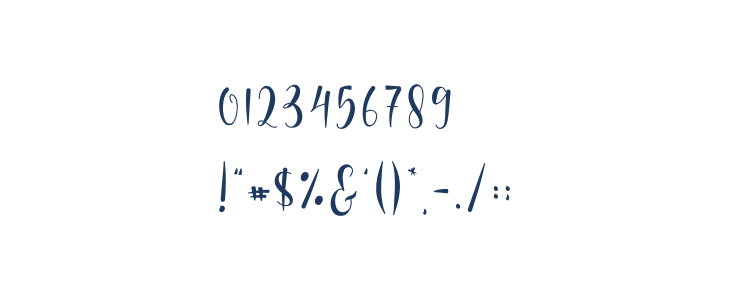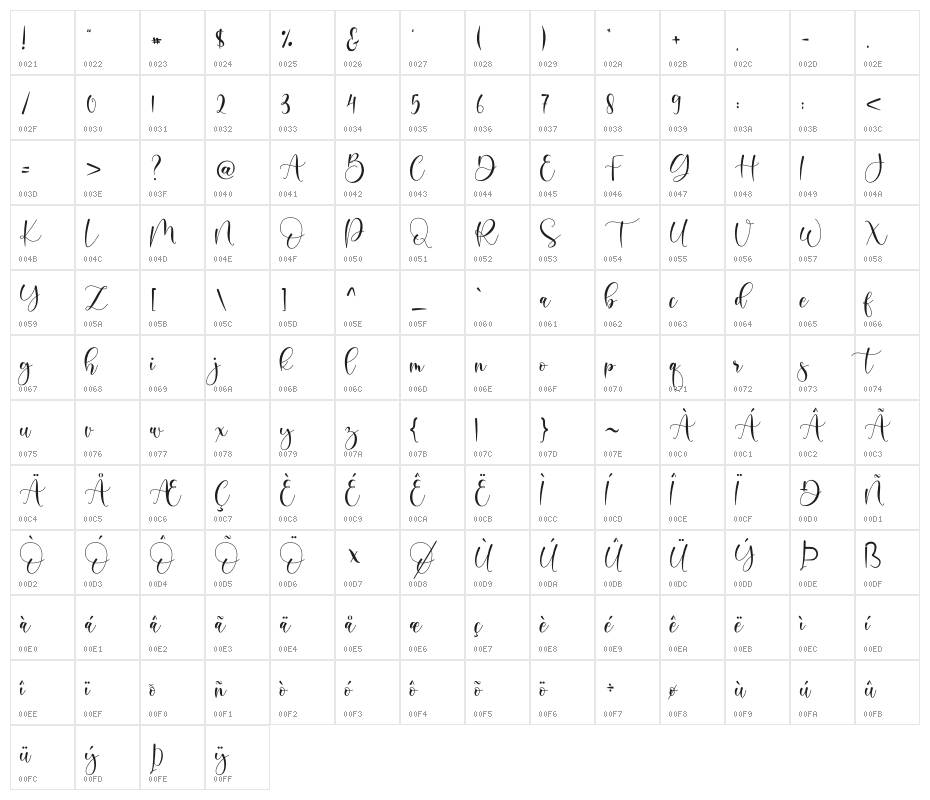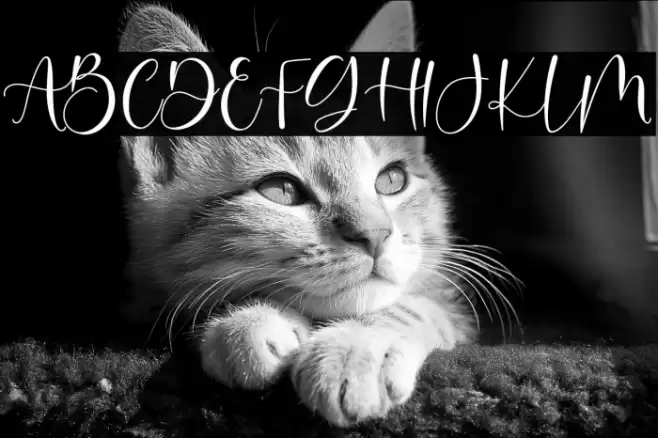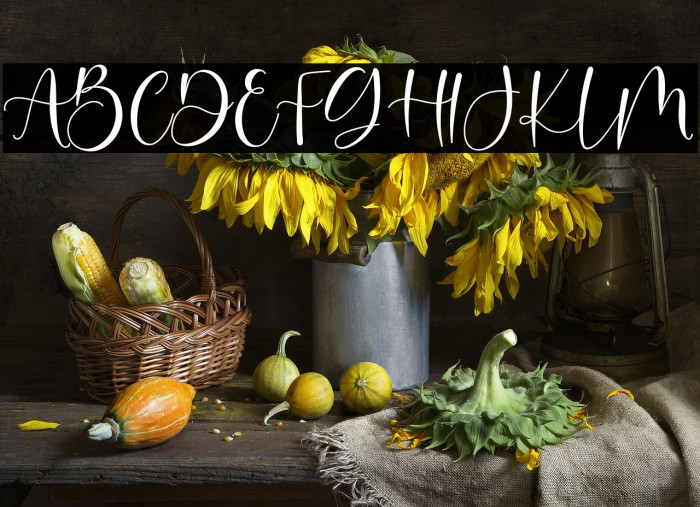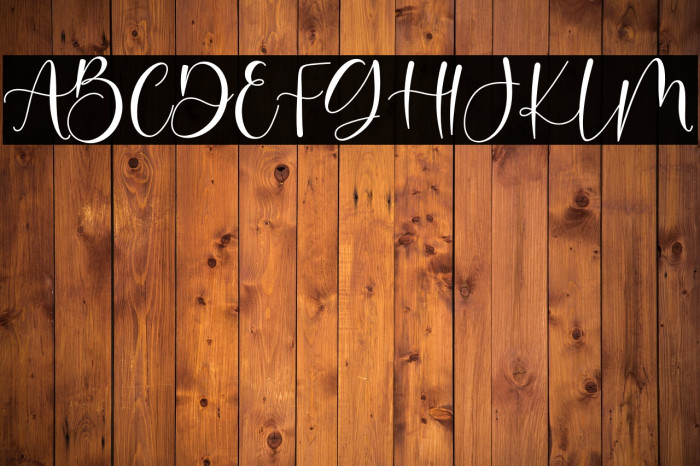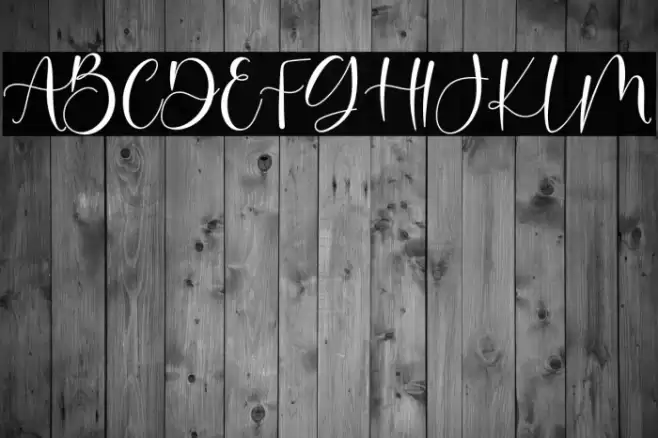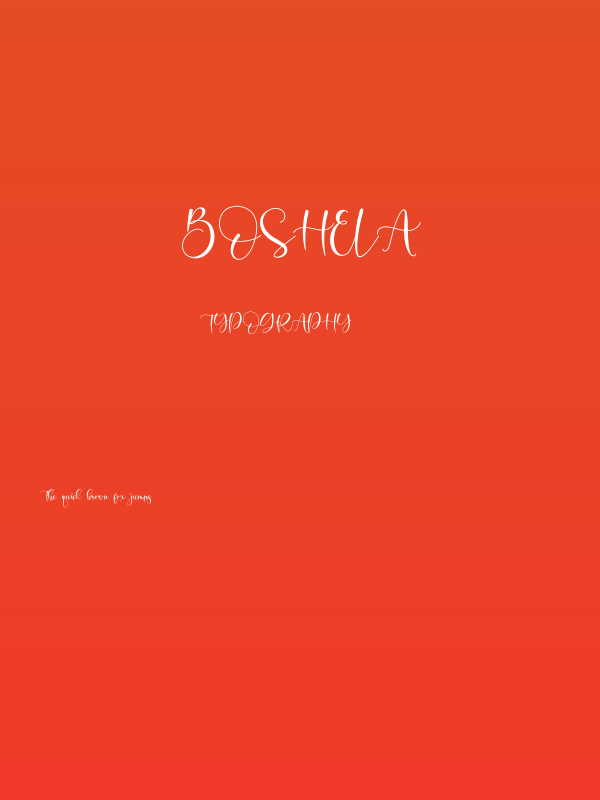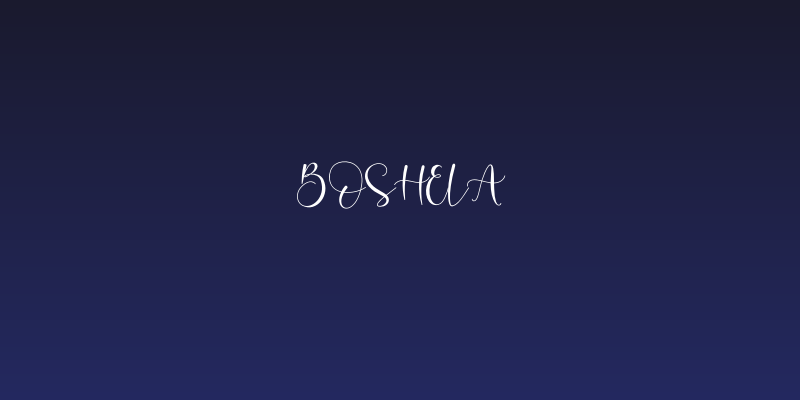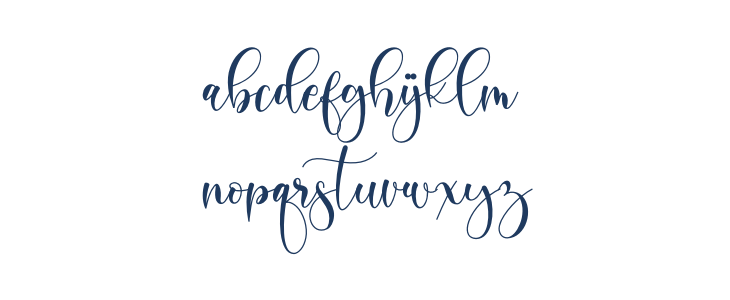
Boshela Font
Boshela Description
This font features an elegant and flowing script style, characterized by its graceful curves and loops. The uppercase letters are tall and slender, with a distinct calligraphic flair that adds a touch of sophistication. The lowercase letters maintain a consistent flow, enhancing the font's overall harmony and readability. The numerals are designed to complement the letters, with a similar fluidity and elegance. Special characters are thoughtfully crafted, maintaining the font's cohesive aesthetic. This font is ideal for projects that require a touch of elegance and style.
| Proposed Projects | Wedding invitations, branding, greeting cards, and elegant packaging design. |